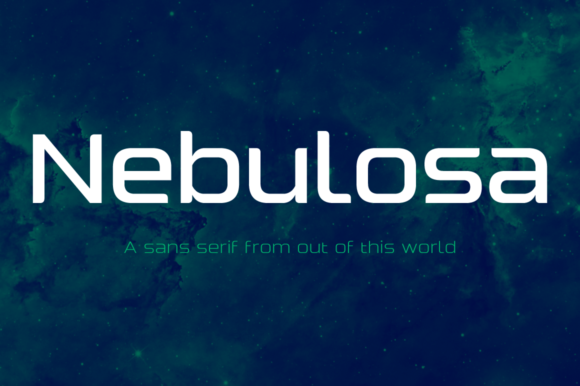
Journey into the world of Nebulosa, a font collection that will redefine your creative expressions. This futuristic sans serif dances effortlessly across your screens and print, captivating your audience with its sleek and solid design.
With an array of 10 styles, Nebulosa adapts seamlessly to your diverse design needs. Its 8 styles, adorned with small caps and extensive language support, pave the way for multilingual masterpieces. And for those seeking a taste of Nebulosa's charm, 2 styles are offered as a complimentary gift.
Crafted by Pablo Balcells in 2020 for Graviton Font Foundry, Nebulosa stands as a testament to modern typography. Its slightly extended structure lends a futuristic allure, while the subtly rounded endings infuse a touch of softness without sacrificing its bold presence.
Whether you're crafting logos that demand attention, headlines that command respect, or display designs that ignite inspiration, Nebulosa emerges as the perfect partner. Its clarity and legibility extend effortlessly to short text blocks, ensuring your messages resonate with impact.
Embrace the future of font design with Nebulosa. Its unique character and versatility will transform your creative visions into captivating realities. Unveil the power of language as it dances with elegance and precision upon the digital and physical canvas.